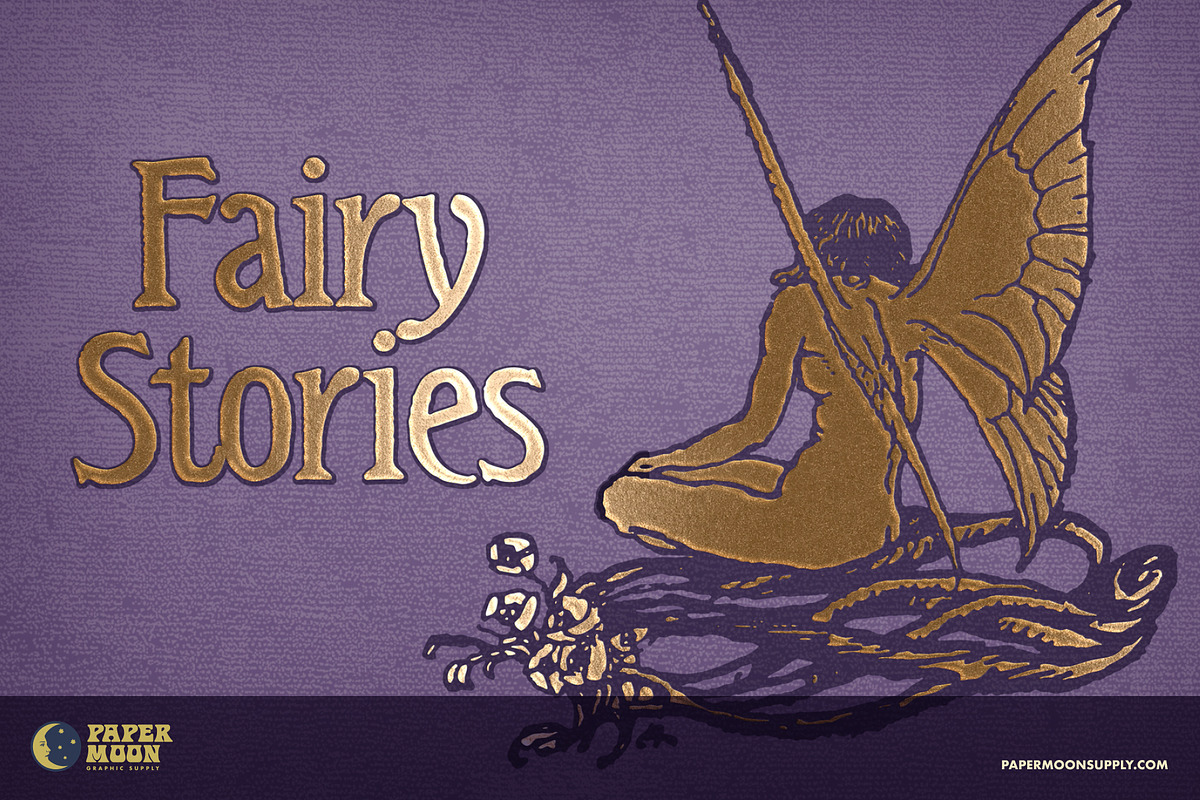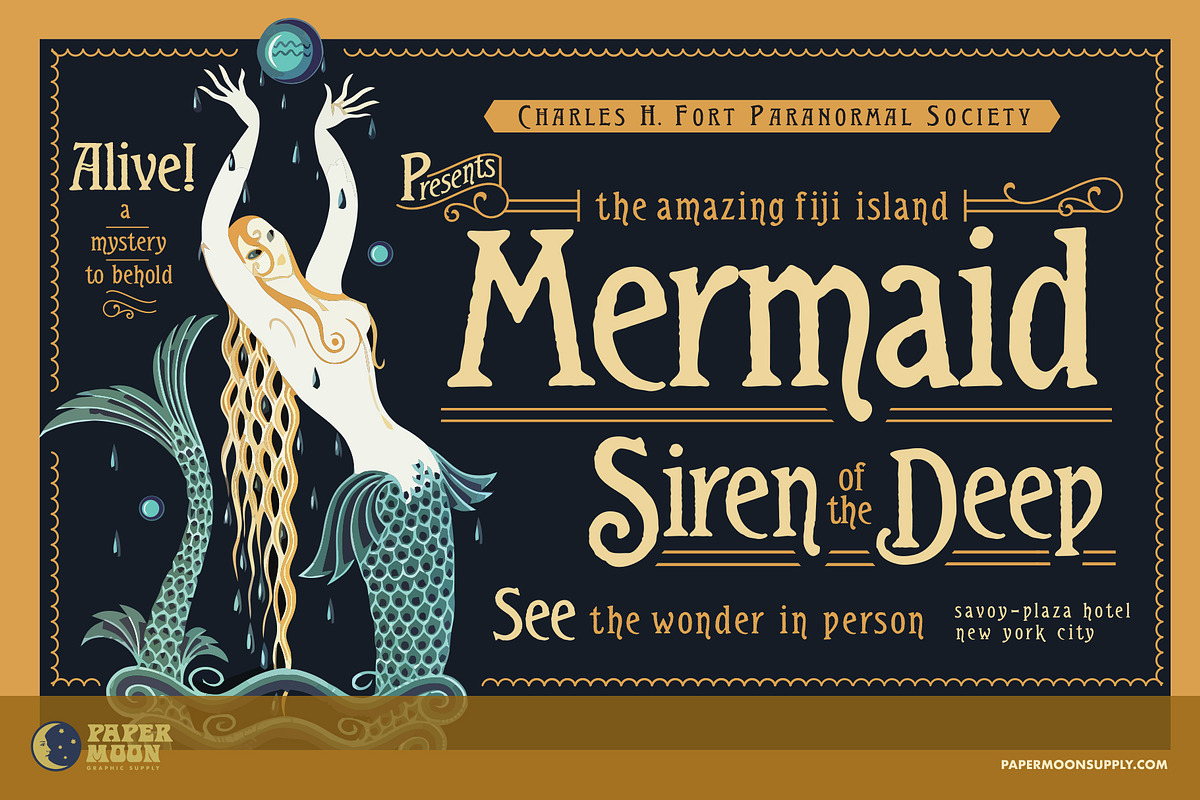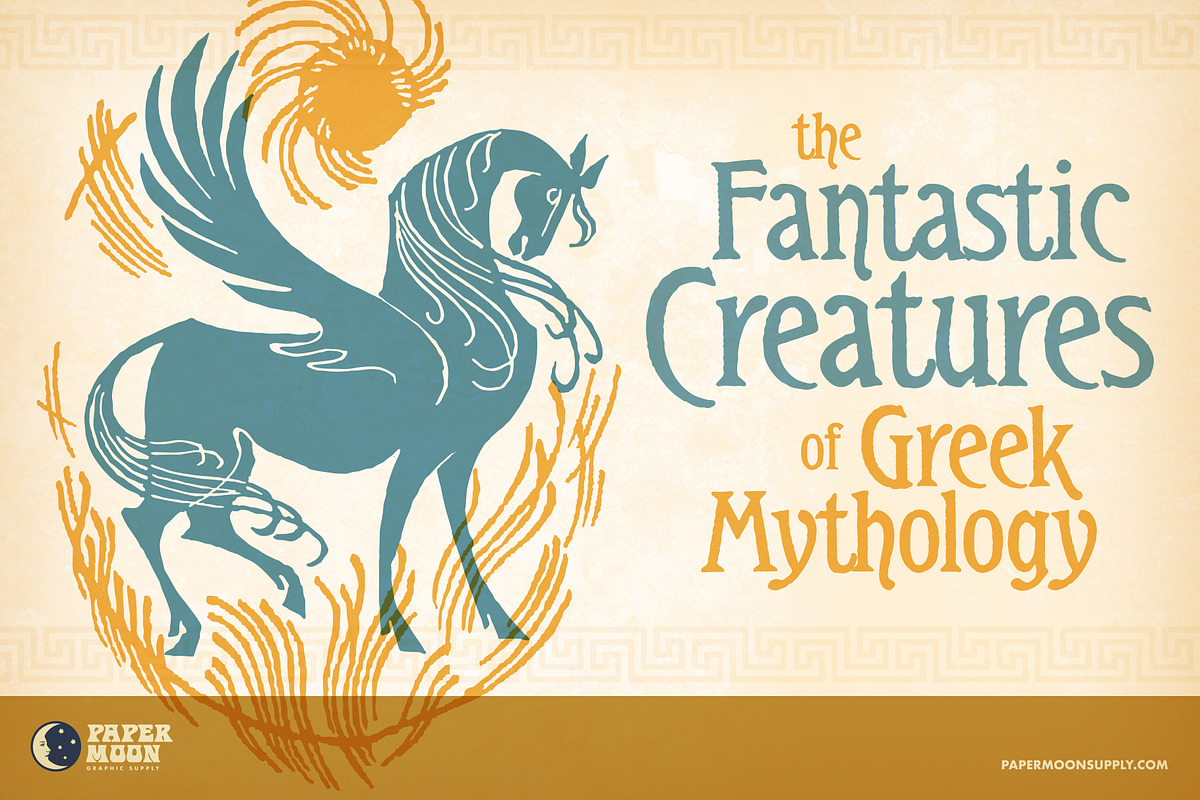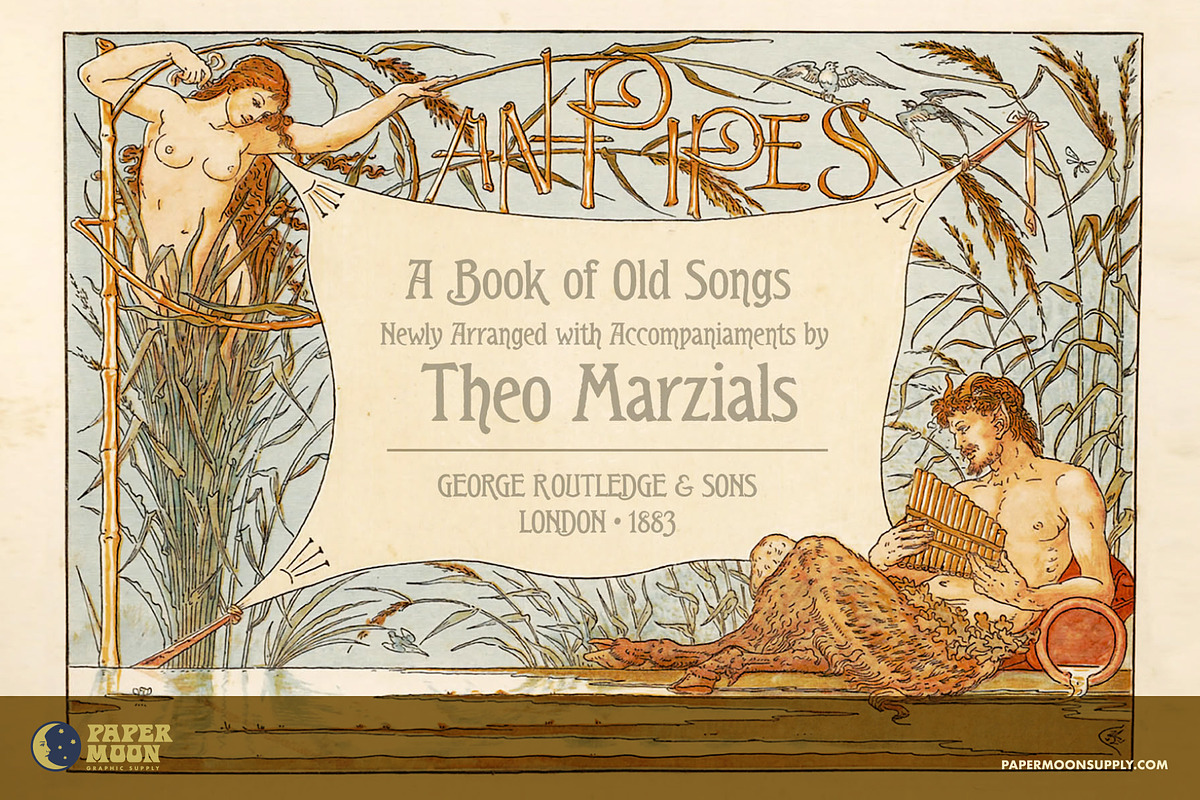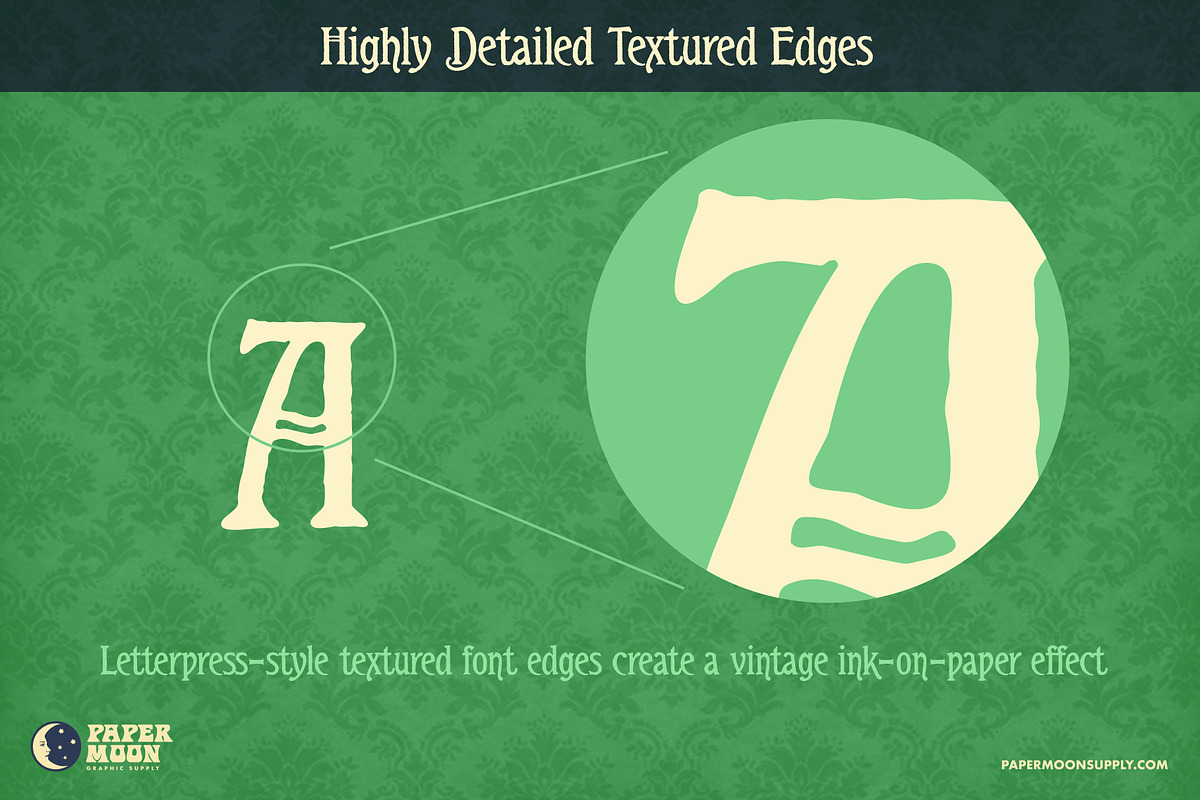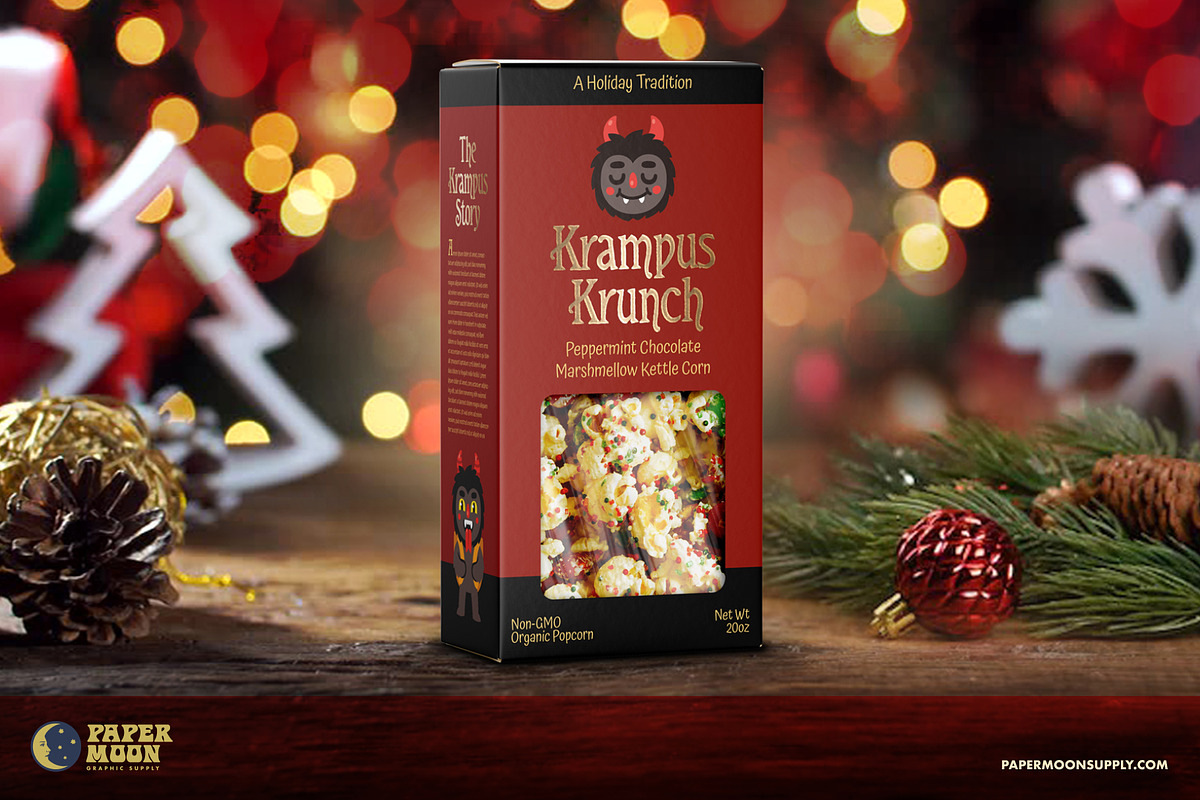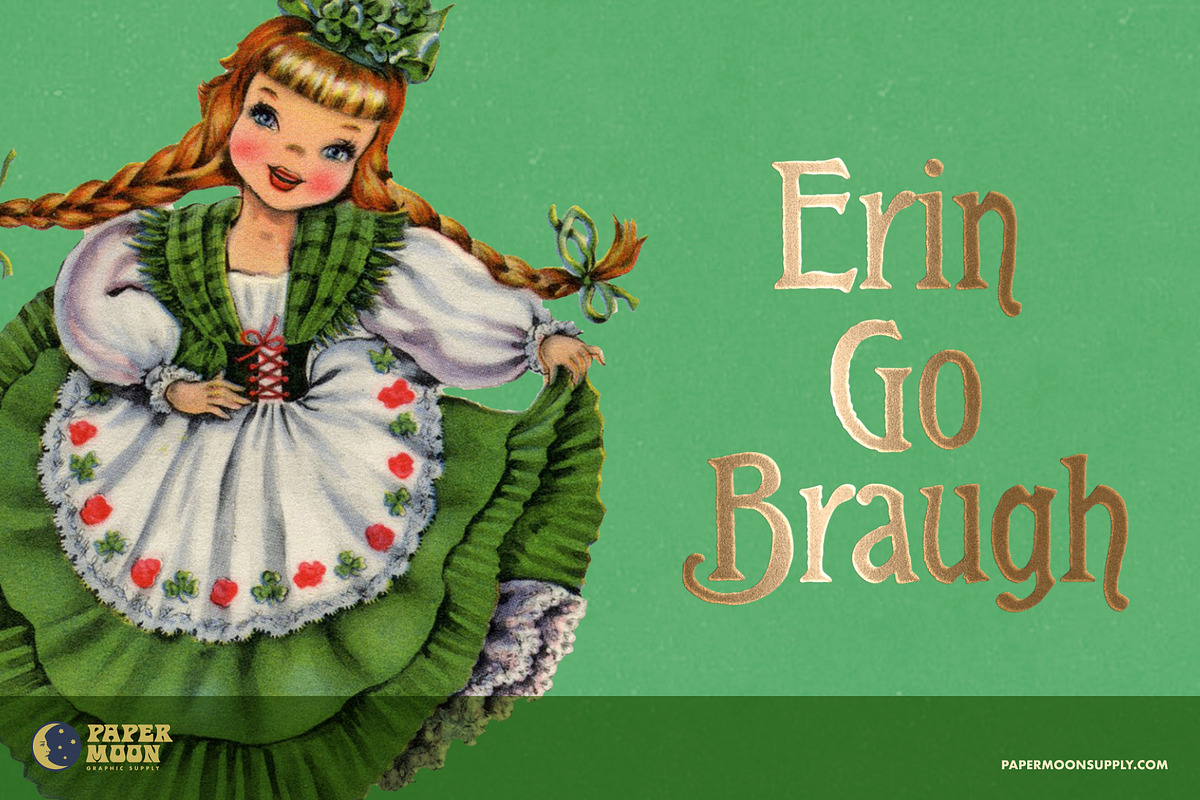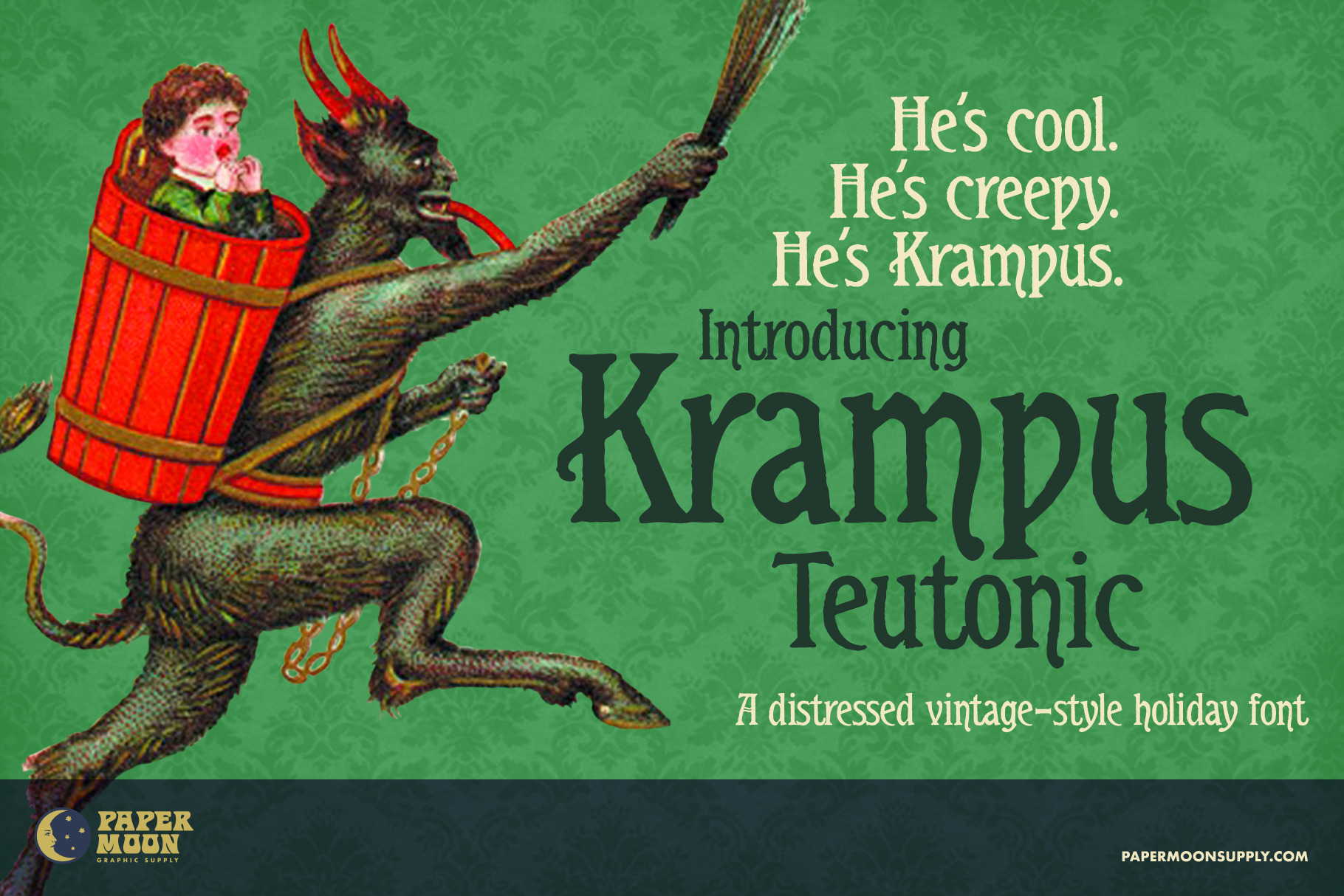
Krampus Teutonic Vintage Font
A new font based on the 1909 version of Teutonic by the Miller & Richard type foundry in Edinburgh, Scotland
Krampus Teutonic is a vintage letterpress font digitized from its type specimen sheet. Though designed to work with our holiday clip art collections, this font can be used for any project that needs a vintage printed look.
Krampus Teutonic is perfect for mockups, posters, fairy tales, book covers, packaging, and social media. It's beautiful plain or used with smart object foil stamp effect in Photoshop. Look at the amazing creative sample slides for inspiration.
- Full character set
- Multi-lingual support
- Over 250 glyphs including alternate characters
- Highly-detailed “rough” letterpress printed-style edges to match our vintage-style clip art